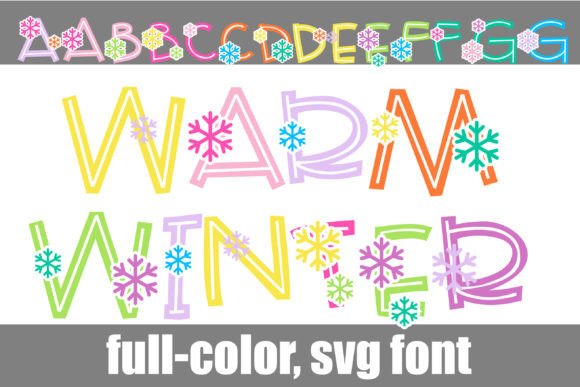
Warm Winter: A Whimsical Snow-Themed Font for Creative Projects
A Unique Visual Personality
Warm Winter is a full-color font that immediately captures attention. It’s a whimsical, snow-themed typeface rendered in a warm color palette, blending the cozy feeling of a fireplace with the playful spirit of winter. The design features soft, rounded letterforms that might incorporate subtle snowflake details or gentle, snowy textures, all displayed in rich, inviting hues like deep reds, soft creams, and golden ambers. This isn't just a black-and-white display font; it's a complete, colorful design asset ready to bring a unique personality to your work. Its overall appeal lies in this combination of thematic charm and visual warmth, making it perfect for projects that need a touch of nostalgic cheer without being overly childish.
Where Warm Winter Truly Shines
This creative font finds its home in specific, personality-driven applications. It’s an excellent choice for seasonal branding, holiday marketing campaigns, and festive event invitations. Think of the header on a winter-themed blog, the title of a holiday recipe ebook, or a special announcement graphic for a small business’s winter sale. Its full-color nature makes it particularly effective for digital design where the colors will display vibrantly, such as social media graphics, website banners, and video thumbnails. In print design, it can add a standout element to packaging design for seasonal products, greeting cards, or boutique gift tags.
For brand identity, Warm Winter is best used as an accent font rather than a primary logotype. It can define a seasonal campaign, a special product line, or a specific marketing initiative, injecting instant personality. A bakery might use it for their winter menu, a craft brewery for a seasonal ale label, or a bookstore for a holiday reading list promotion. Its strength is in creating a memorable moment, not necessarily in setting long-form body copy. When considering font pairing, it works well with a clean, neutral sans serif font or a simple serif font to provide balance and ensure readability for supporting text.
Practical Guidance for Using This Premium Font
Evaluate the project fit carefully. Is the tone playful and seasonal? Does the audience appreciate whimsical design? If yes, proceed. Test the font pairing early. Place a headline in Warm Winter and set a paragraph of body text in your chosen companion typeface. Check for visual harmony and ensure the display font doesn’t overwhelm the supporting text. Review all included styles and glyphs; accessing the alt case or additional characters through your system’s font map or Silhouette’s glyph map can unlock even more creative possibilities, like alternate color palettes.
Readability is paramount. While beautiful, its decorative nature means it’s best suited for short bursts of text—headlines, titles, and logos. Avoid using it for lengthy paragraphs or small print where its details might get lost. Finally, confirm the commercial font licensing aligns with your intended use, whether for personal projects, client work, or products for sale. Using a premium font correctly ensures your designs are both beautiful and professionally sound.
Unlocking Its Potential
Think of Warm Winter as a specialized tool in your design kit. It won’t replace your everyday sans serif font or script font, but when the brief calls for something specific—something cozy, festive, and full of character—it can be the perfect solution. Its value lies in its ability to instantly convey a mood and theme, making it a powerful asset for designers, marketers, and content creators looking to add a distinctive, seasonal touch to their visual communication. By understanding its strengths and applying it thoughtfully, you can leverage this modern typography to create engaging, professional designs that resonate with your audience.